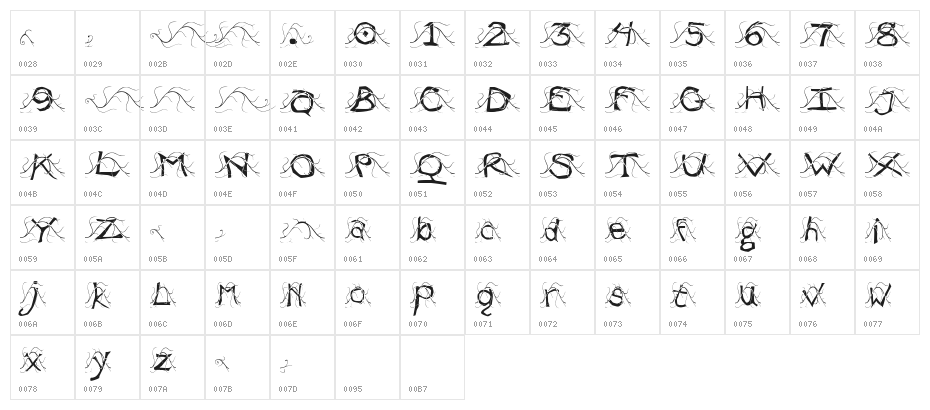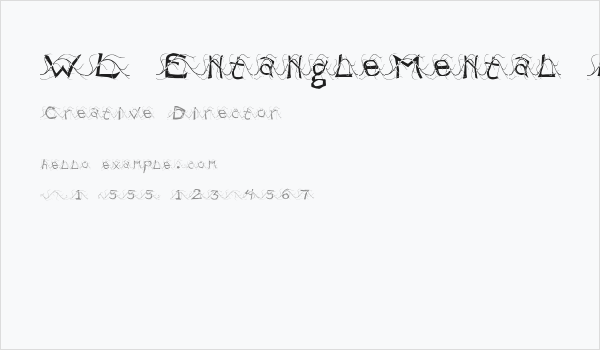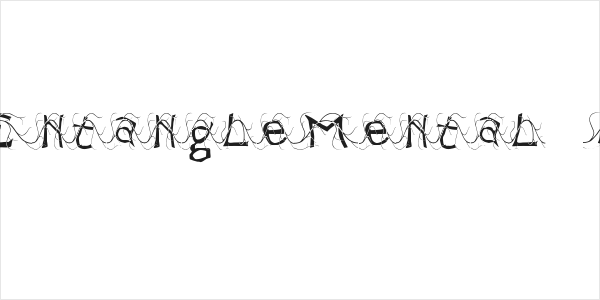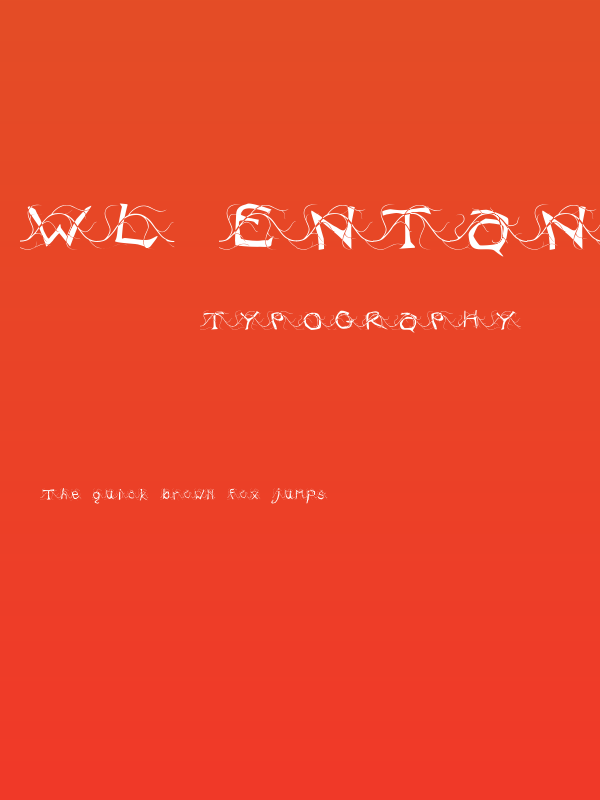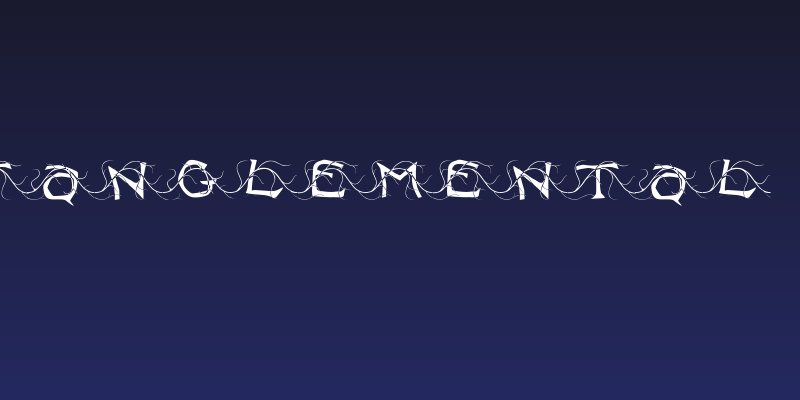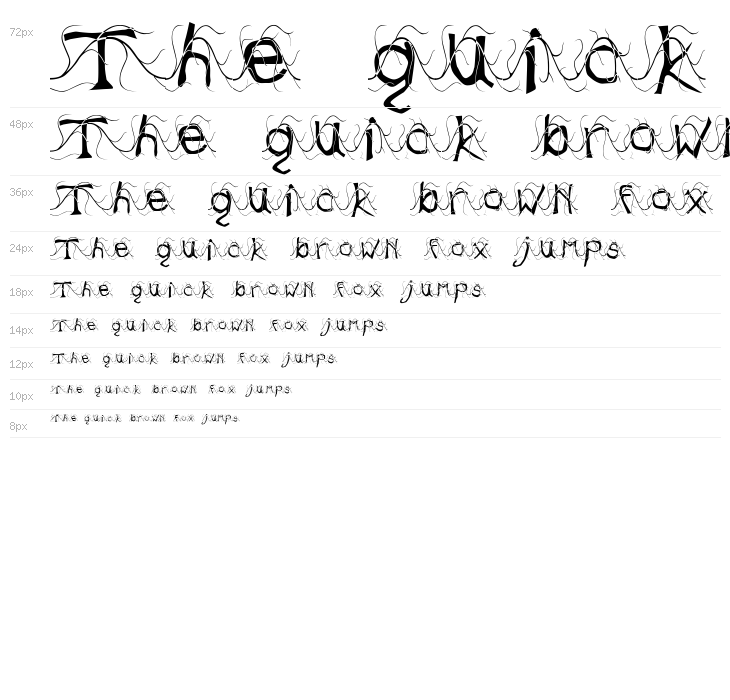
WL EntangleMental Light Font
WL EntangleMental Light Description
This font features an intricate and decorative design, characterized by swirling, vine-like embellishments that intertwine with each letterform. The uppercase and lowercase letters maintain a consistent style, with each character adorned by elaborate flourishes that extend beyond the basic letter shapes. The numbers and special characters follow the same ornate pattern, creating a cohesive and artistic appearance. The overall aesthetic is whimsical and artistic, making it suitable for creative and expressive projects. The font's unique style is eye-catching and adds a touch of elegance and complexity to any design.
| Use Case | Headlines, Logos, Artistic projects |
| Proposed Projects | Ideal for invitations, artistic posters, branding for creative industries, and decorative headings. |